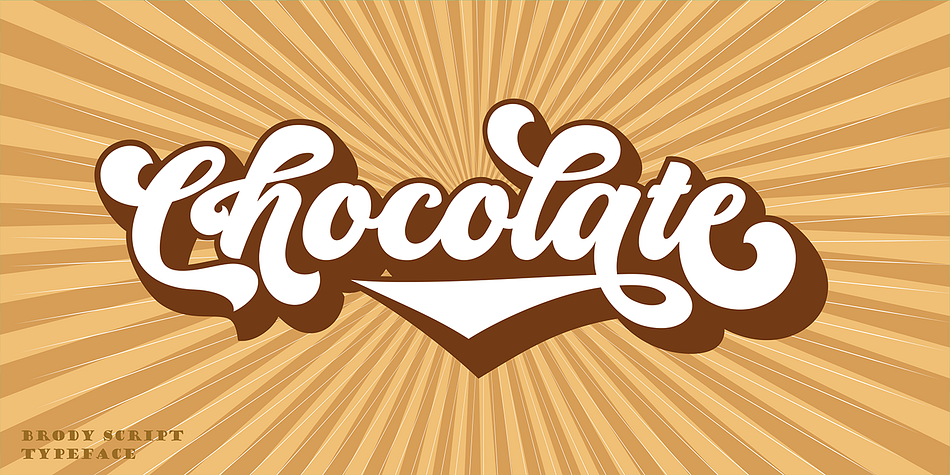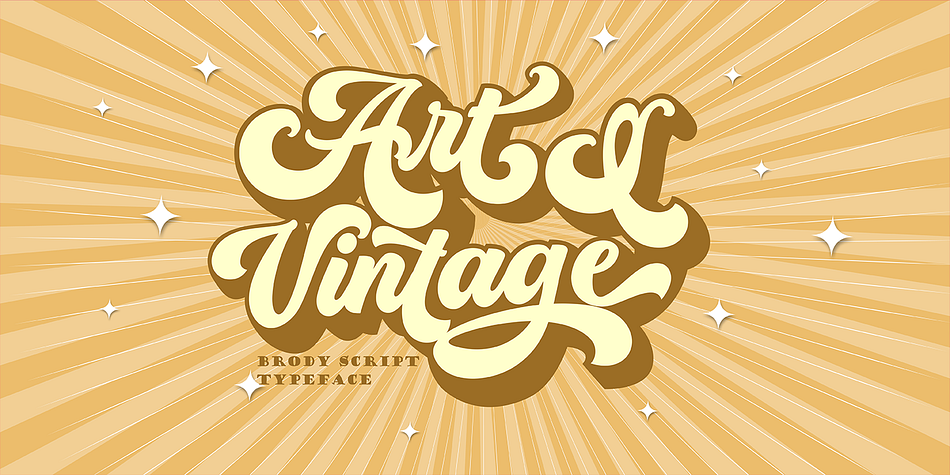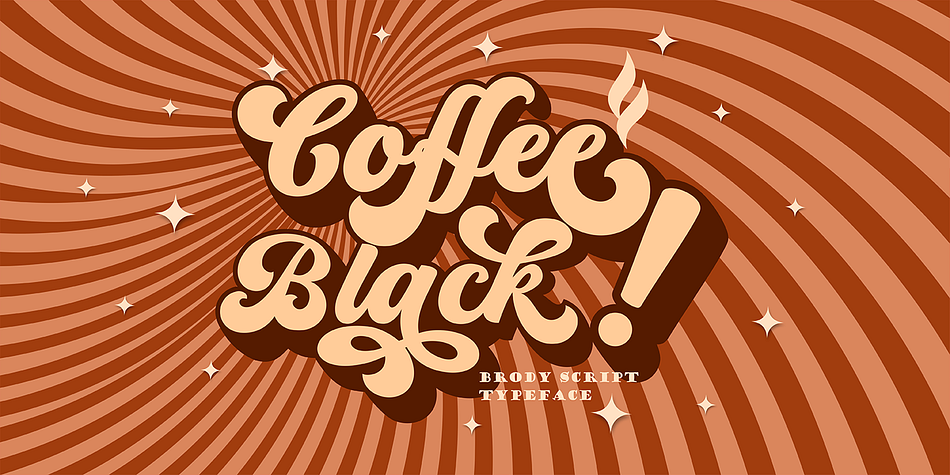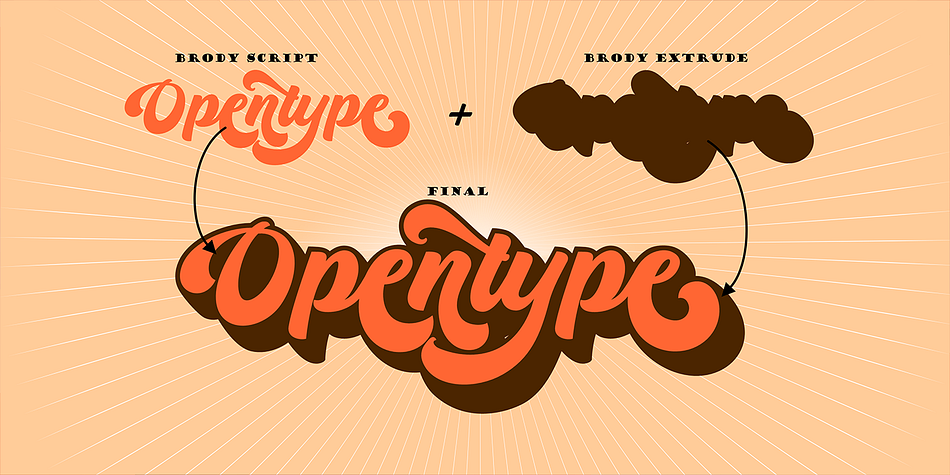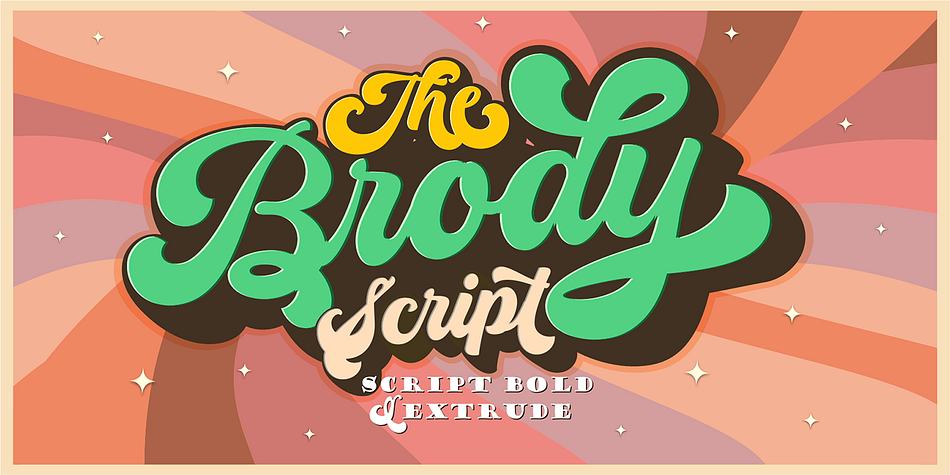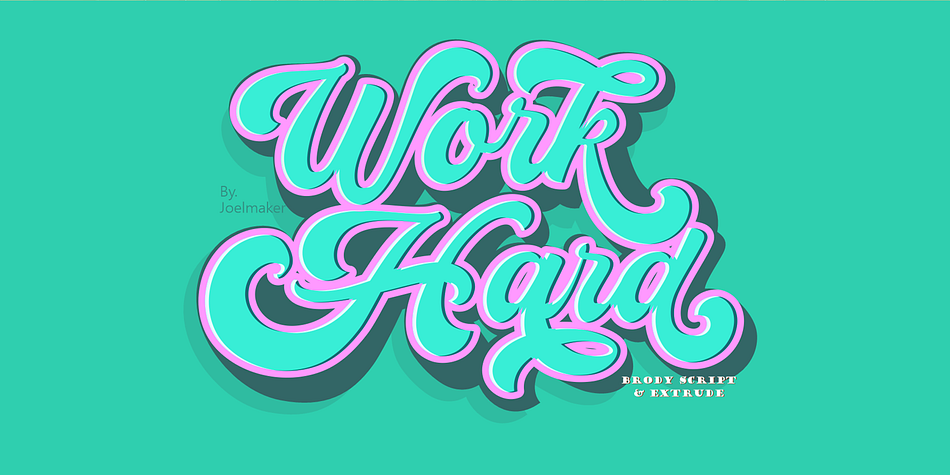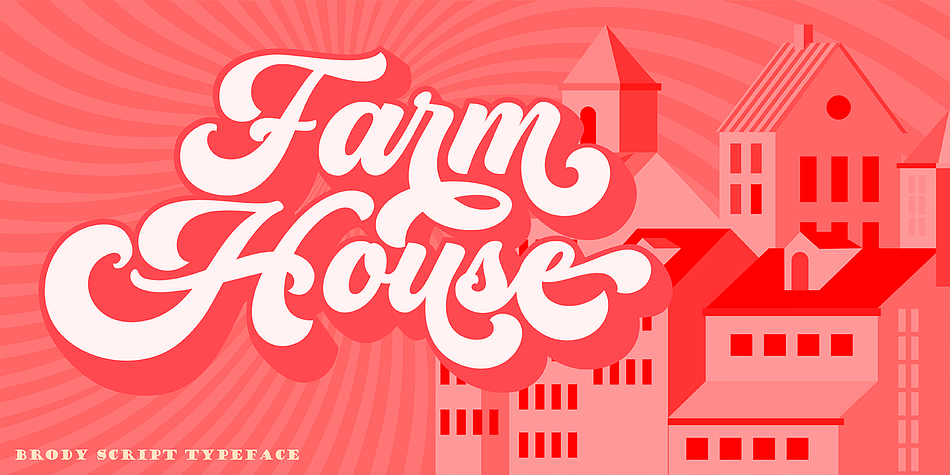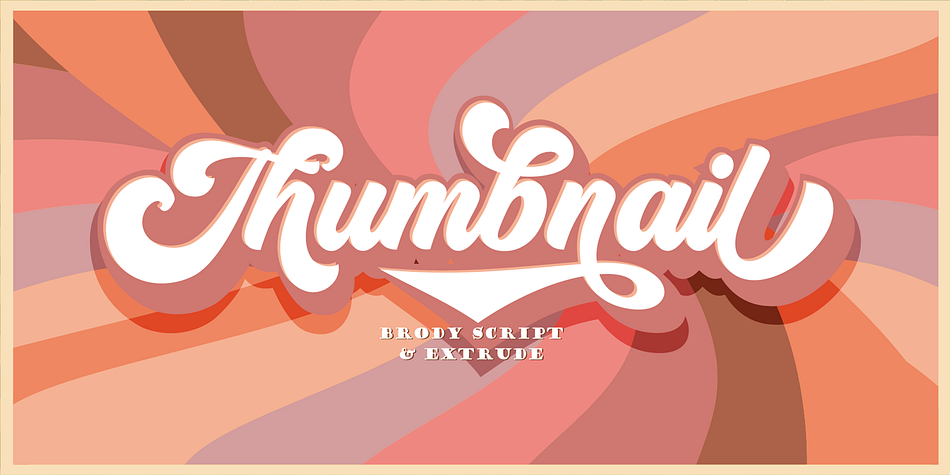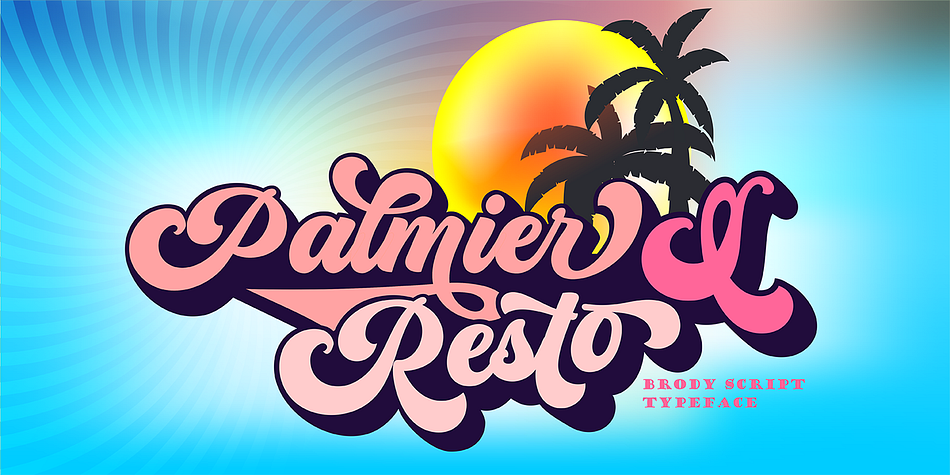
Brody Script Extrude
Designed by Zulfikar MG, Brody Script Extrude is a brush script and retro font family. This typeface has two styles and was published by joelmaker.
Brody Script + Extrude
Brody Script + ExtrudeThis font comes with an Extrude version, bold and shadow effects. this font to complement your perfect vintage design! a collection of letters inspired by retro 70s typographic designs. perfect for branding, logos, stickers, posters, vintage designs, wall art and more!
Brody Script + Extrude includes: Stylistic Alternates, Ligatures & Stylistic Sets. You can choose an alternative style of up to 20 Stylistic Sets per letter and 765 Glyphs. By using Glyph in software programs like Photoshop, Illustrator and CorelDraw X version. You can also access this in many other programs by using your character map (Windows) or font book (Mac).